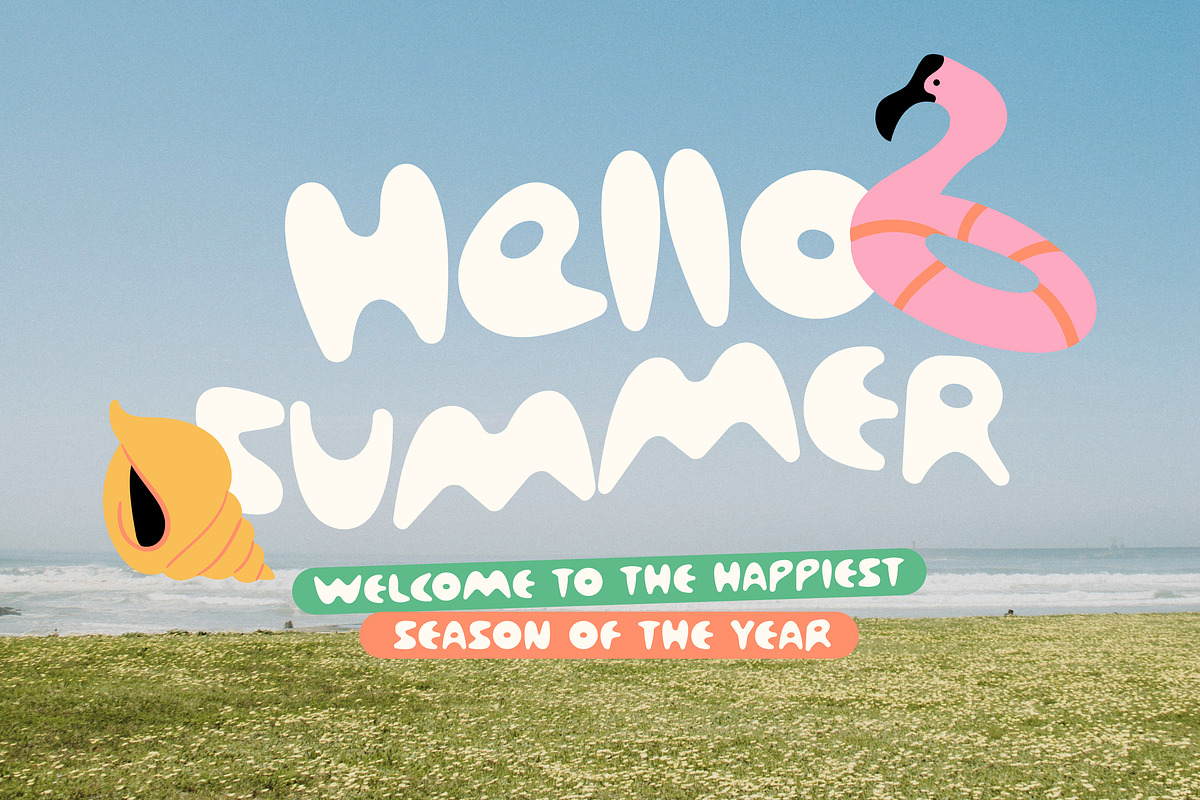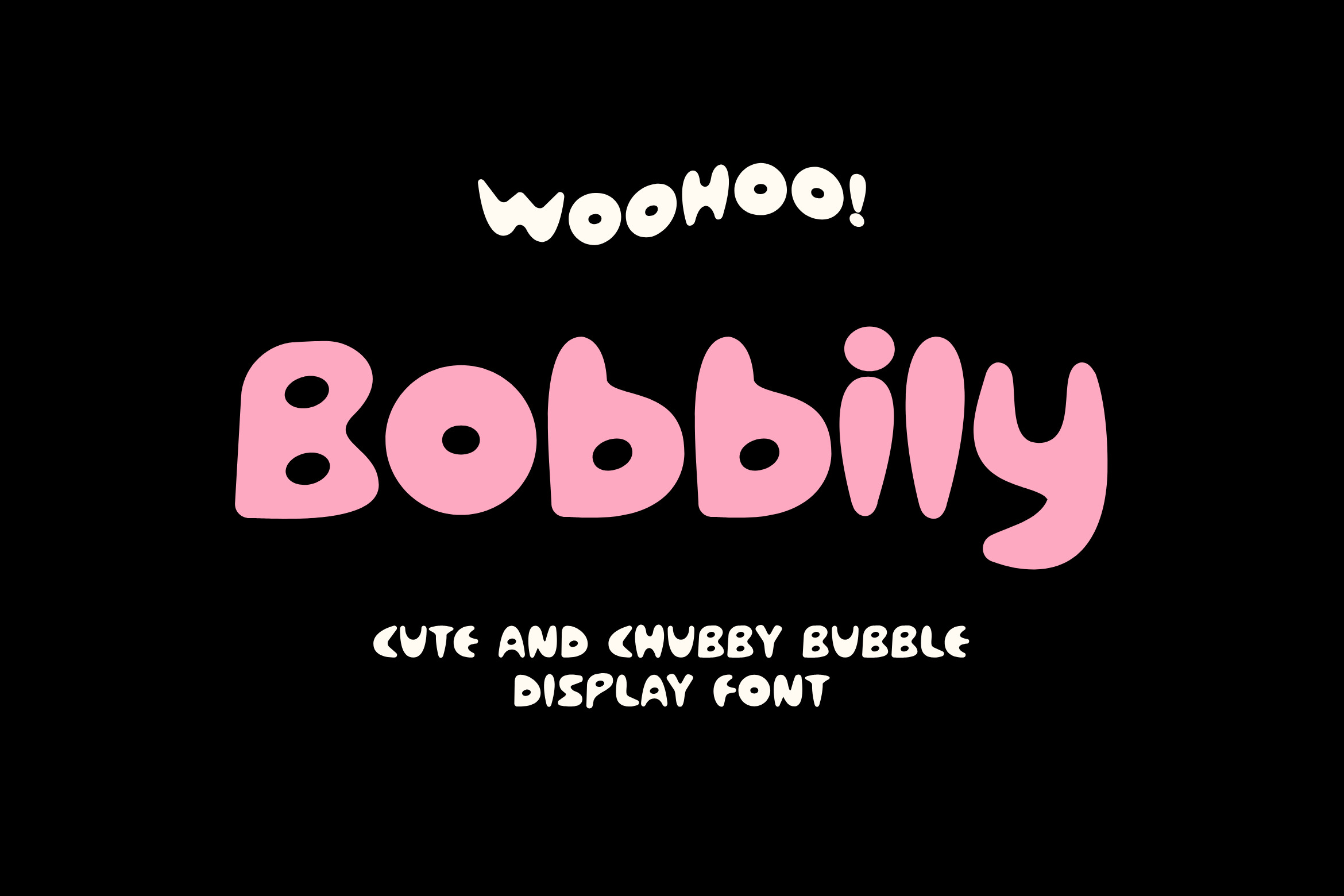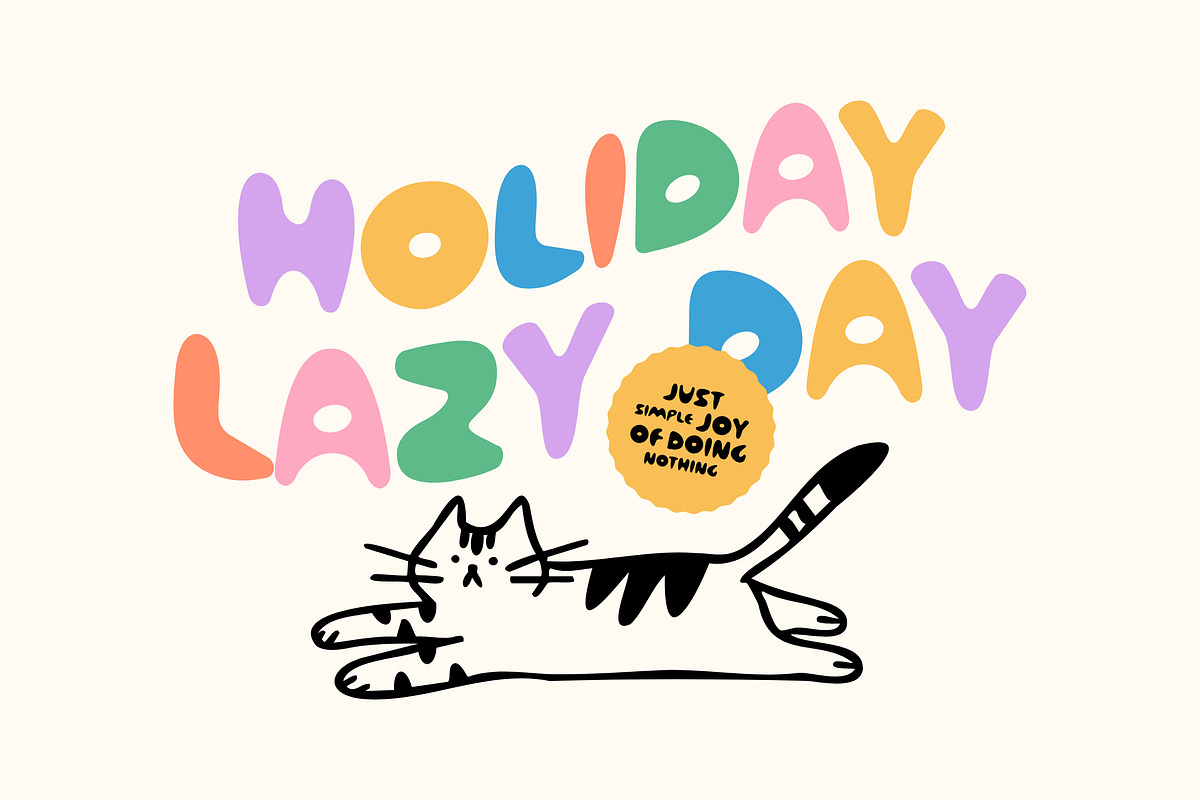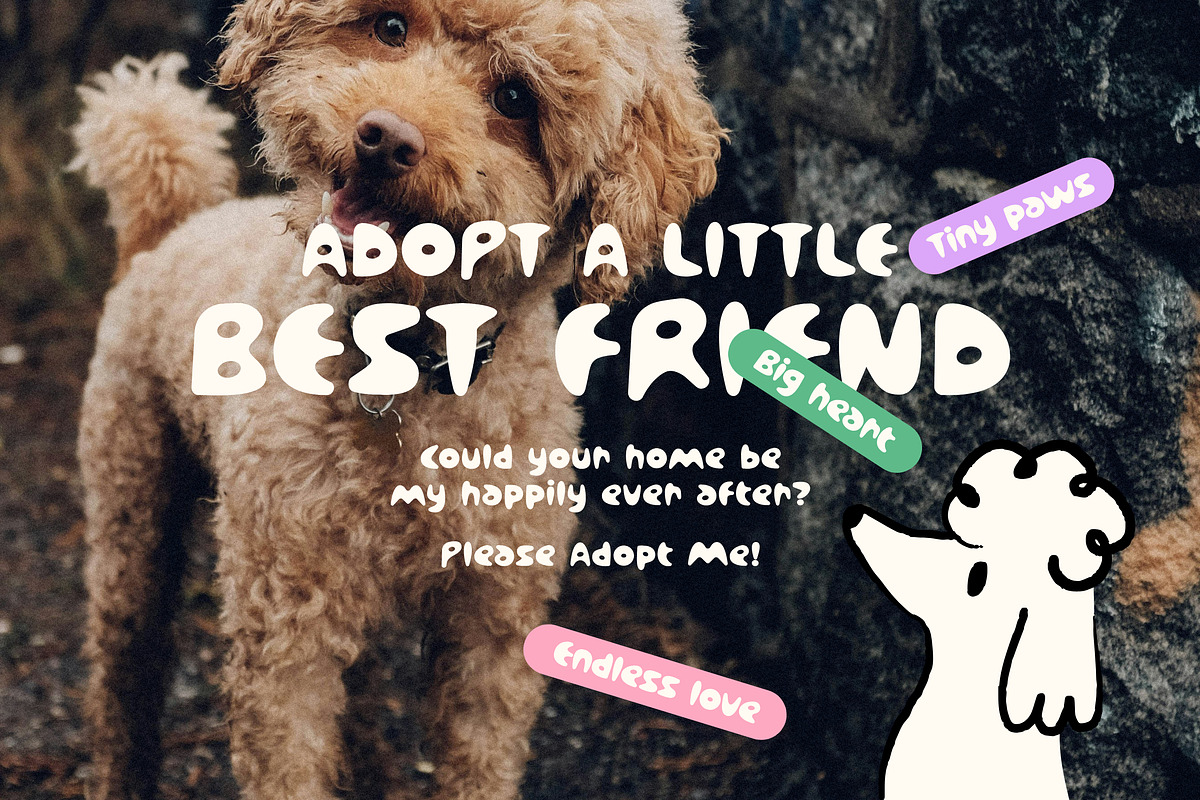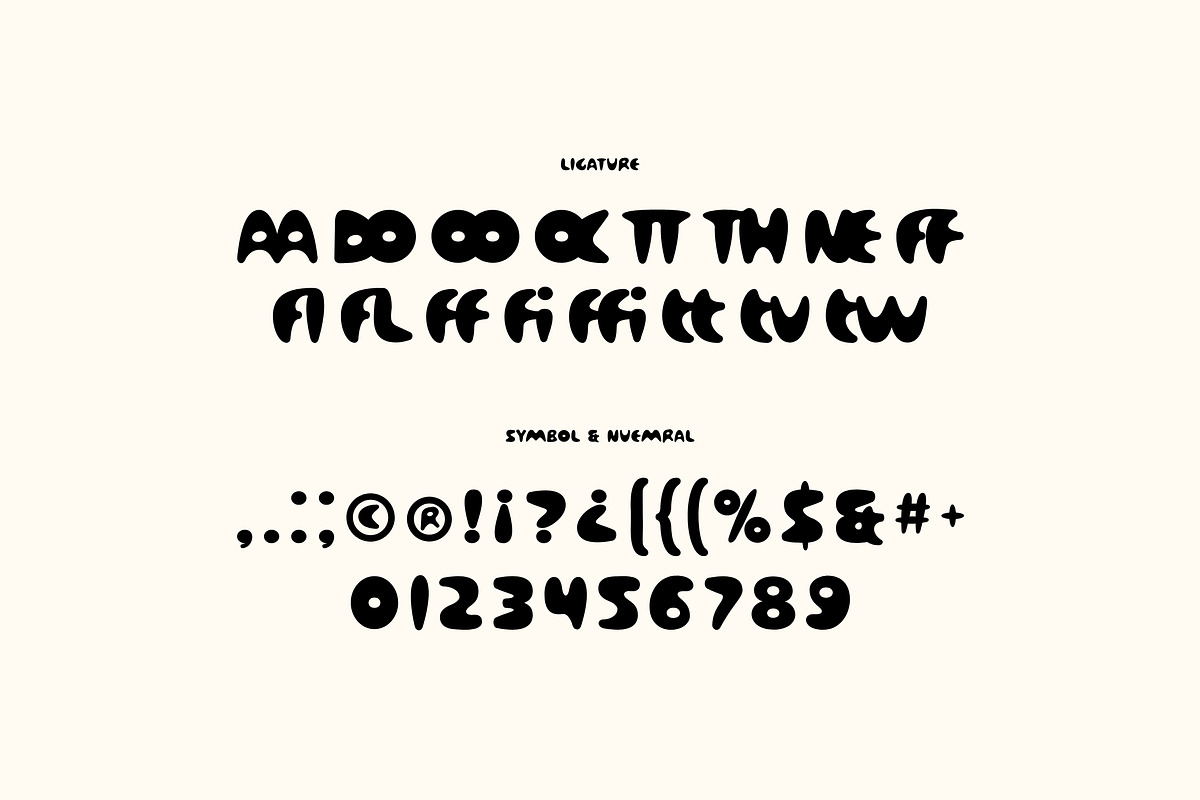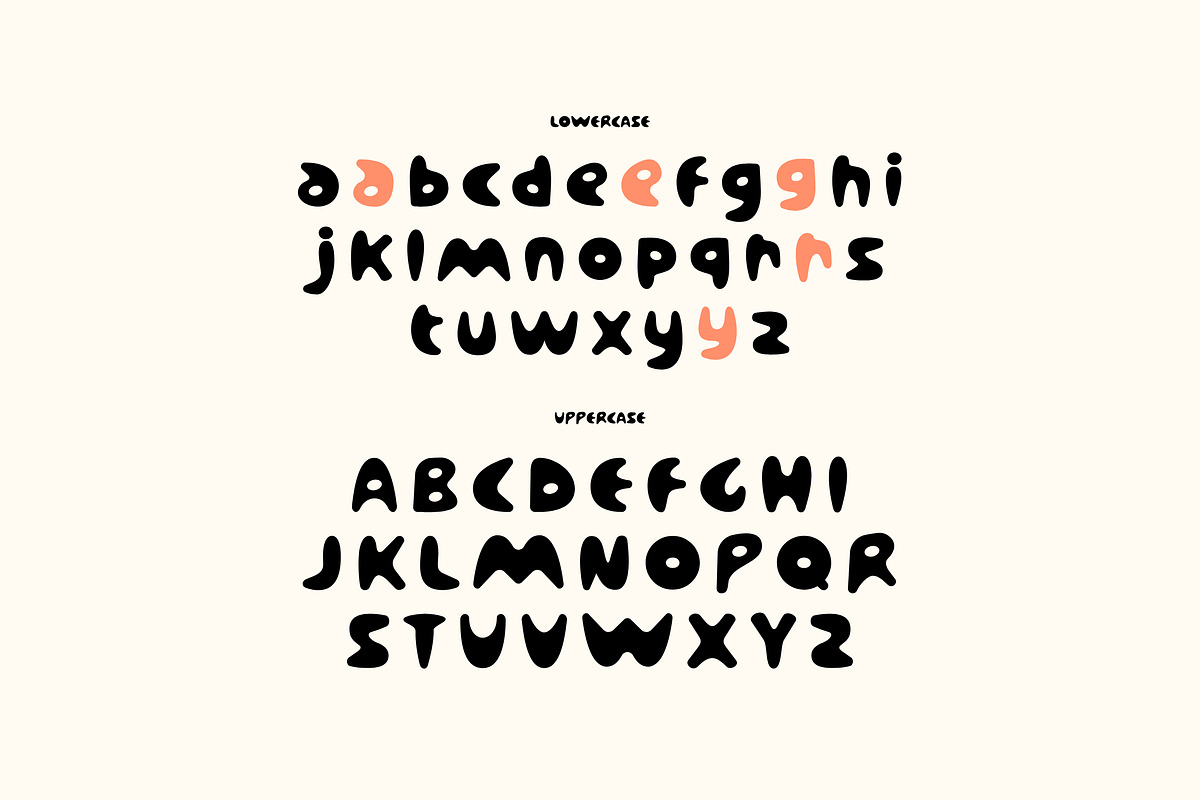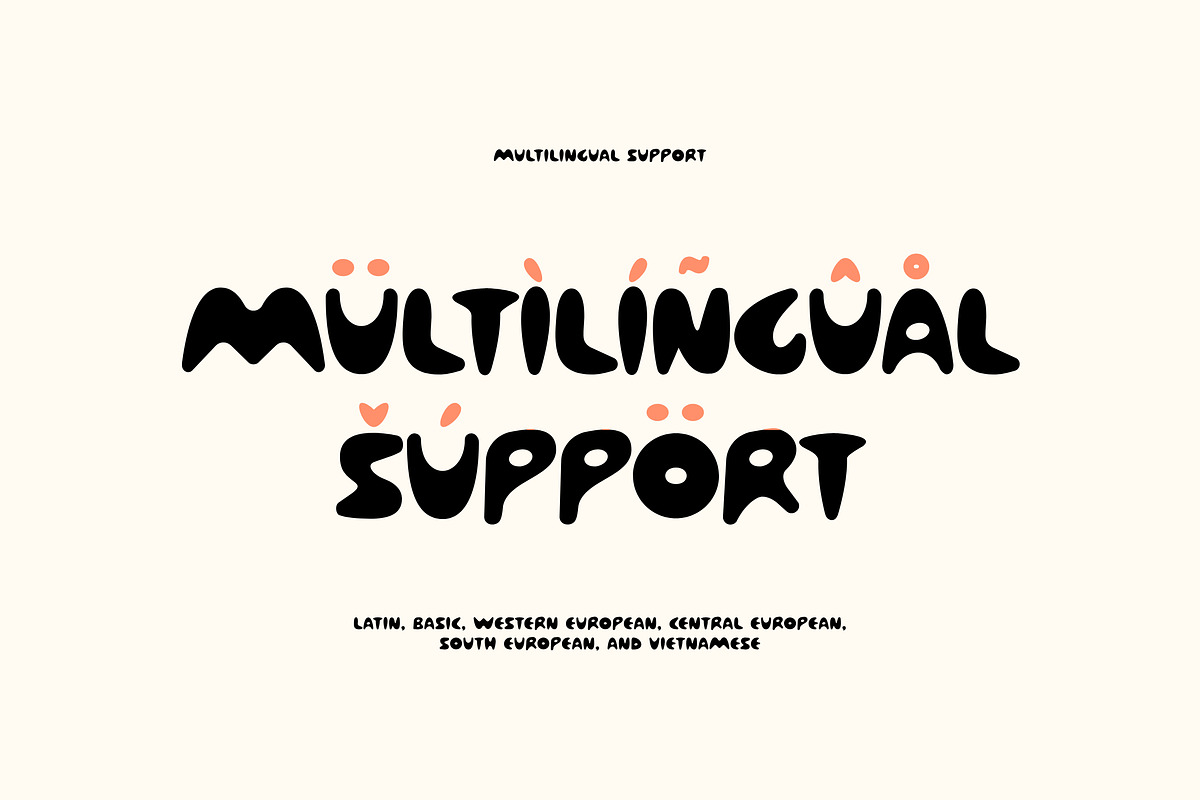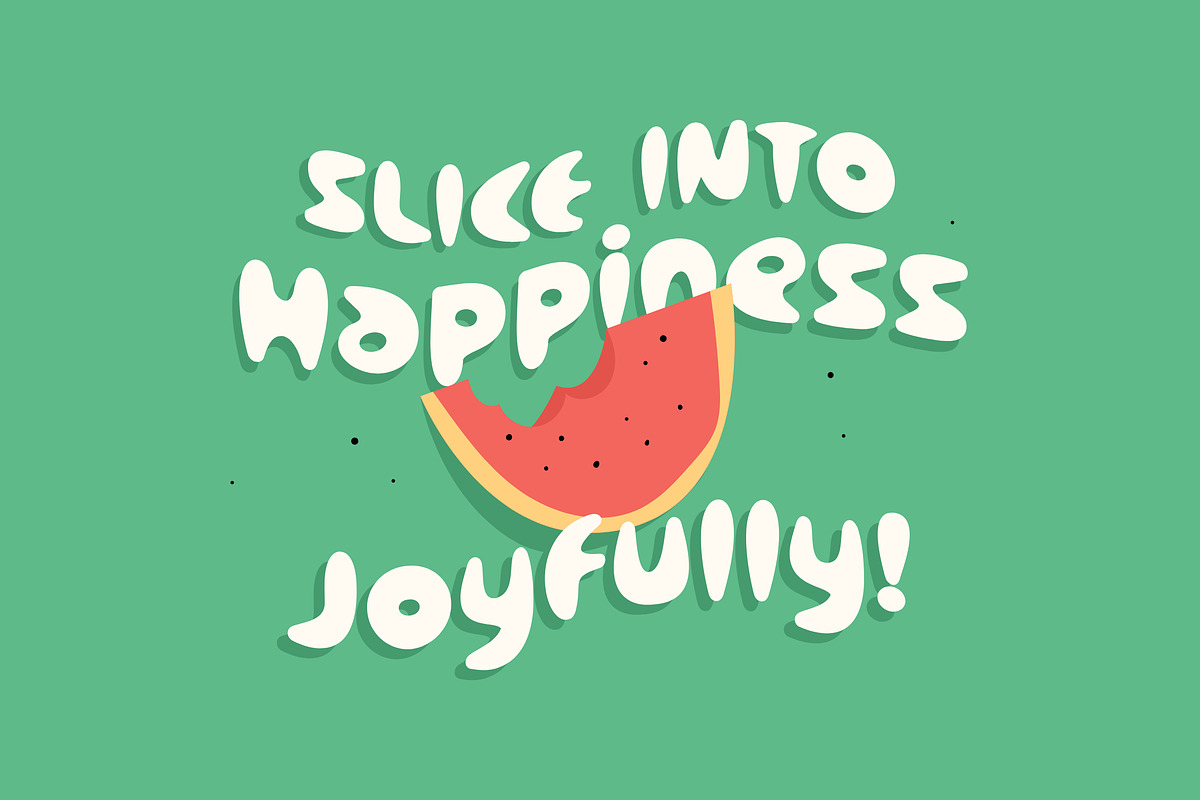
Bobbily Cute Bubble Font
Bobbily is a chubby, hand-drawn bubble display font with thick, rounded strokes and a playful, inflated look as if each letter were made of soft dough or bubblegum.
Bobbily font letters features wide, blob-like forms with minimal, tightly pinched counters, giving the letters a squishy, toy like volume. Baselines and cap heights wobble slightly letter to letter, adding organic, hand lettered charm rather than rigid geometric precision.
This font features a retro, groovy and Y2K inspired, similar to 1970s bubble lettering, and pairs well with bright candy colors, halftone textures, and playful illustration, ideal for logos, packaging, kids' branding, summer promos, and social media titles.
Uppercase and Lowecase Characters.
Numerals and Punctuations.
Alternates and Ligatures.
Multilingual Support.